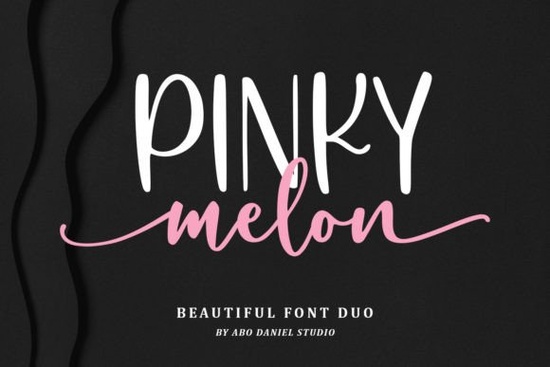
What makes this script and sans-serif combo work so well?
The design relies on smart contrast. The script carries soft, natural strokes that feel personal without looking messy, while the sans-serif partner keeps everything grounded. When placed together, the result feels approachable yet professional. This balance matters when you are creating materials that need to look refined but warm, like boutique packaging or client welcome guides. The letterforms are spaced carefully, so you won’t spend extra time fixing overlapping characters.
Where does this font duo fit best in real projects?
Because the two styles complement each other, they adapt easily to different creative work. Wedding invitations benefit from the elegant script for couple names, while the sans-serif handles venue details clearly. Print-on-demand sellers frequently use this combination for quote shirts and mugs because the script draws attention and the clean font keeps the message readable at smaller sizes.
Small business branding also gets a practical boost here. Think about coffee shop menus, cosmetic labels, or digital planners. The script adds personality to headlines, and the sans-serif maintains consistency across body text. When you need a more nostalgic feel for heritage brands, you could explore typefaces that lean into retro aesthetics instead. For bright, youth-focused campaigns, some creators prefer bold and playful lettering that matches a louder visual style. And if you are designing outdoor merchandise, sturdy display fonts often pair better with textured backgrounds.
Open your software’s glyph panel to find the extras. You will notice beginning and ending swashes that help the script flow naturally into logos. There are also stylistic alternates that let you swap specific letters to avoid repetition in longer phrases. If you enjoy experimenting with cheerful lettering, you might also want to look at upbeat handwritten styles for casual social media graphics.